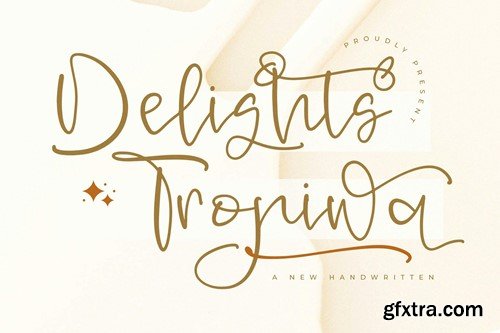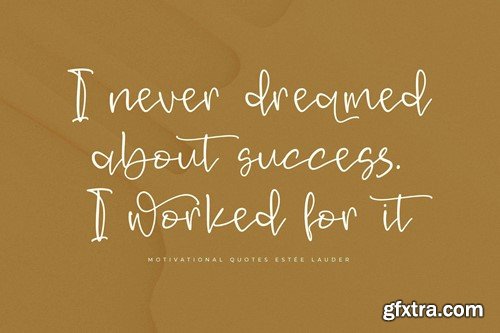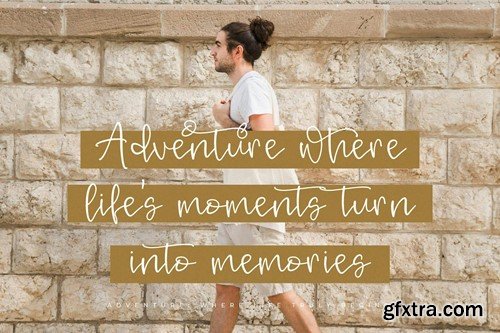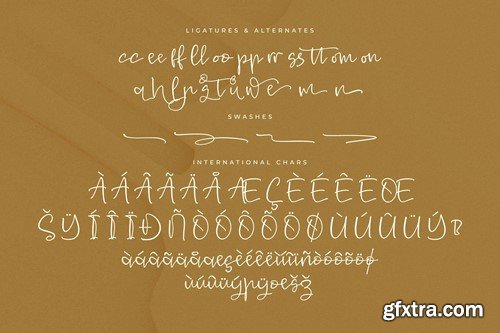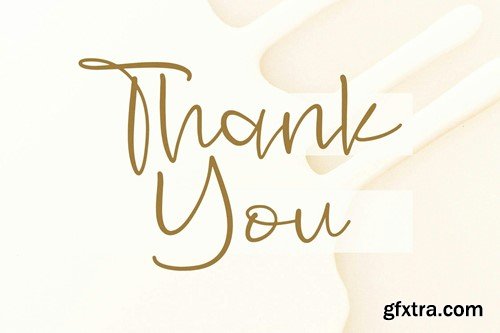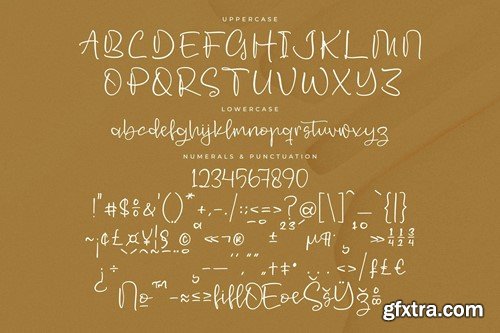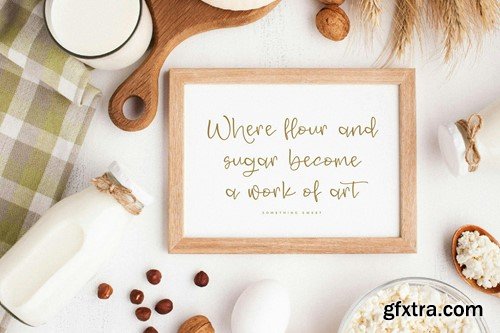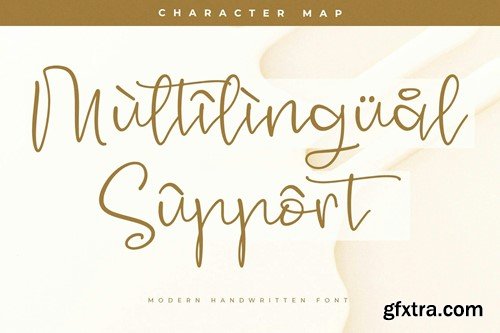
Delishts Tropiwa Handwritten Font
Hi ladies & gentlemen, this is one of our fonts suitable to complement your digital and printed creative products. This font is perfect for posters, social media posts, branding, personal projects, etc.